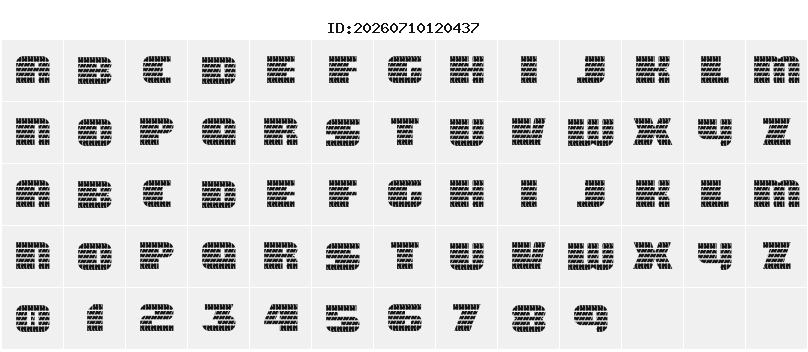
Eagle GT II Preview
• Font Name: Eagle GT II
• Full Font Name: Eagle GT II
About Eagle GT II.ttf
Eagle GT II.ttf is a modern, elegant sans-serif font designed for ultimate readability and visual harmony. Perfect for branding, headlines, web design, and print materials.